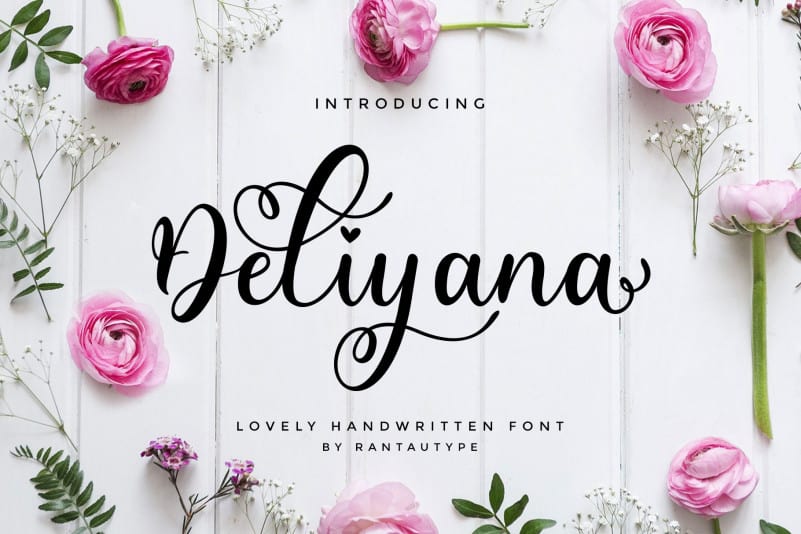
Deliyana Calligraphy Font Free
Deliyana Calligraphy Font is a modern script, full of personality and curves. This font was designed to give natural handwritten look in a digital world. Made from font designer named Rantautype.
This is lovely font which can be interpreted professional. this font looks modern, feminine, girly, catchy and easy to use. Deliyana is the great choice for watermark on photography, signature or signature logo design, quotes, album cover, business card and many other design project. Deliyana is here to make your work to high level!!!